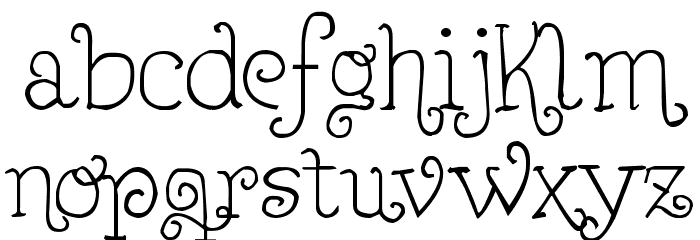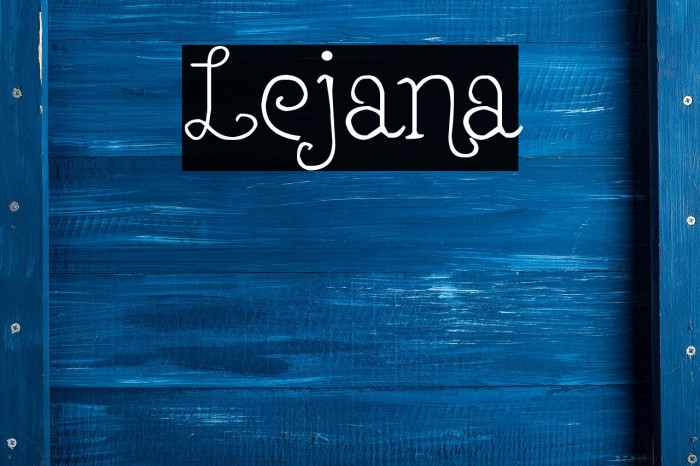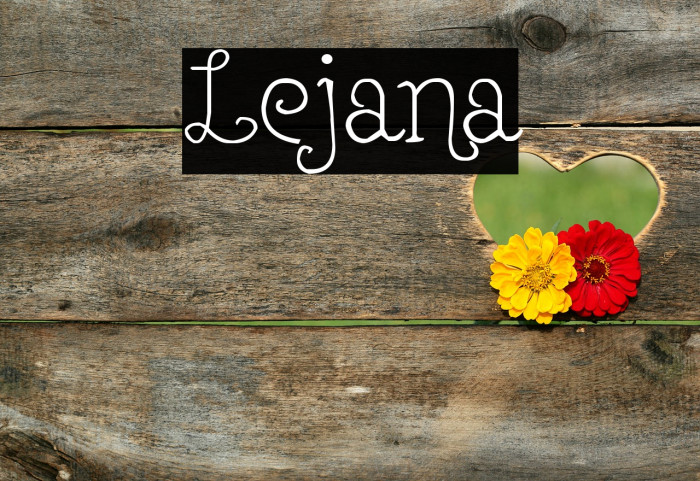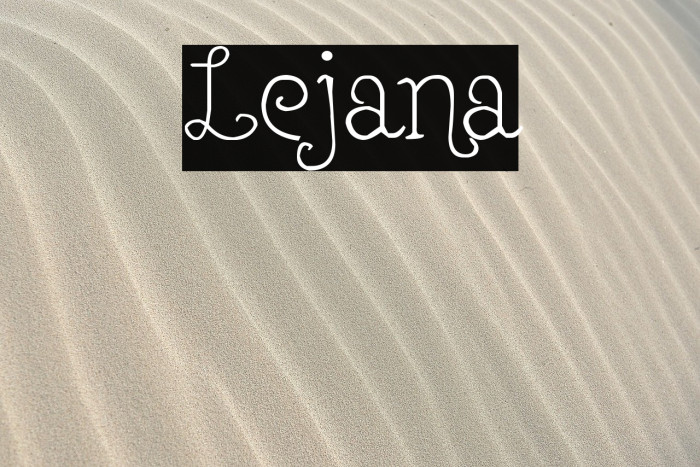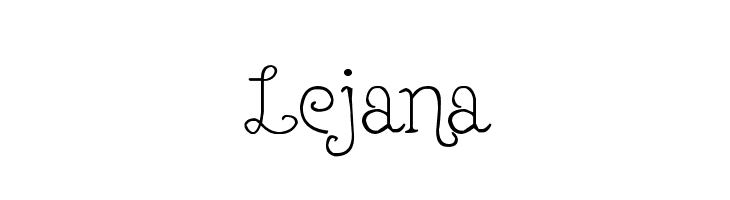
Lejana Font
This font features a whimsical and decorative style, characterized by its playful curls and swirls at the ends of each letter. The uppercase letters are bold and prominent, with unique embellishments that give them a lively appearance. The lowercase letters maintain the same decorative flair, ensuring consistency throughout the typeface. Numbers and special characters also follow this ornate design, making the font suitable for creative and artistic projects. The overall look is both elegant and fun, making it ideal for designs that require a touch of personality and flair.
A whimsical and decorative font with playful curls and swirls.
- Proposed Projects: Ideal for invitations, greeting cards, children's books, and playful branding.
- Use Case: Headlines, Logos, Invitations